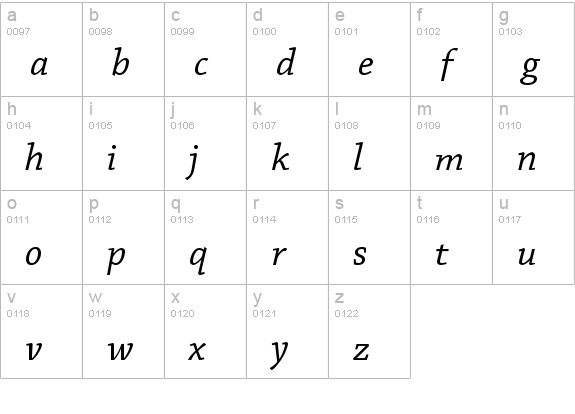
Chaparral Pro Italic Caption Font Details
Chaparral Pro Italic Caption is a distinctive, italic variant in the Chaparral typeface family \xE2\x80\x94 well suited to design and typography projects.
Chaparral Pro Italic Caption font exudes elegance and sophistication with its sleek and modern design. The italic styling adds a touch of flair, making it perfect for captions and small text. The font's delicate curves and balanced letterforms create a harmonious look that is both refined and versatile. Best of all, Chaparral Pro Italic Caption font is available for free download at FontsMarket.com. Whether you're designing a website, creating a brochure, or working on a branding project, this font is sure to elevate your work with its timeless appeal. Don't miss out on this opportunity to enhance your designs with the beauty and grace of Chaparral Pro Italic Caption font. Download it today and let your creativity shine!